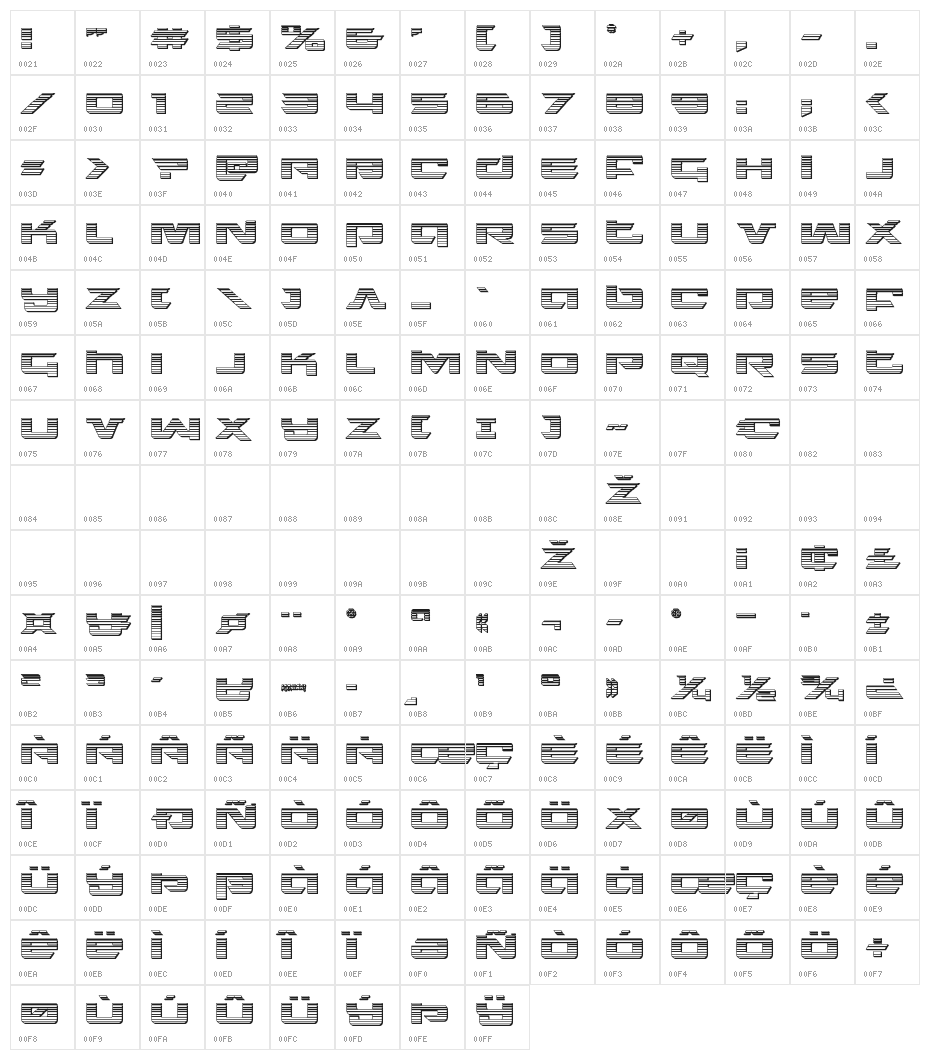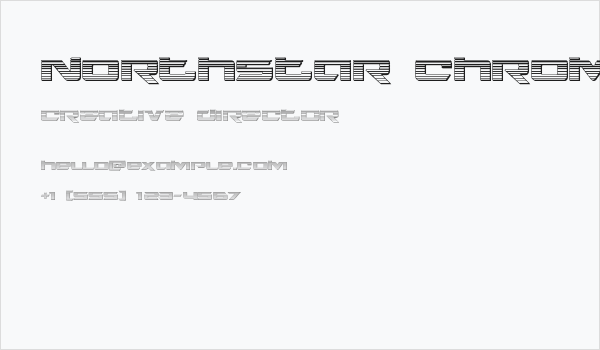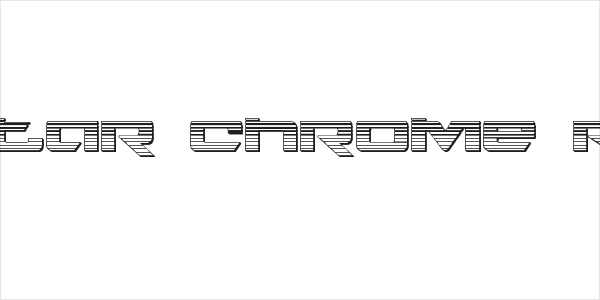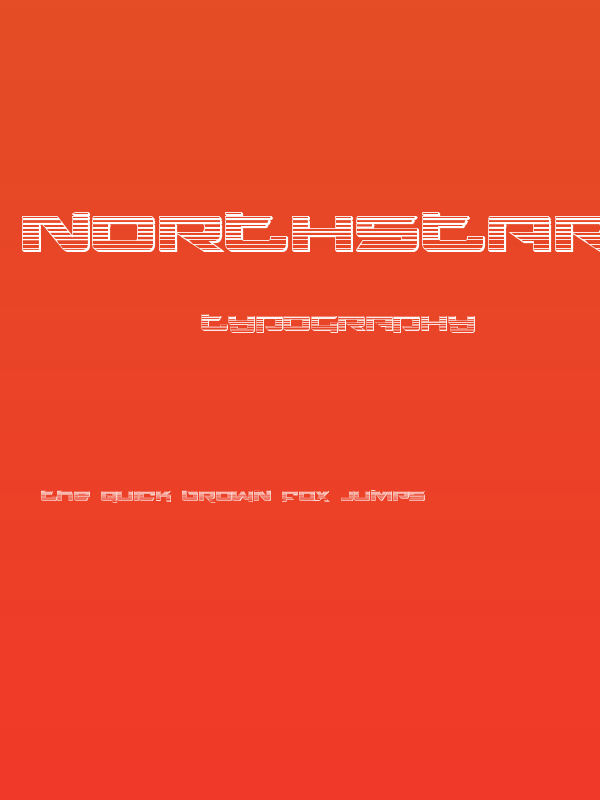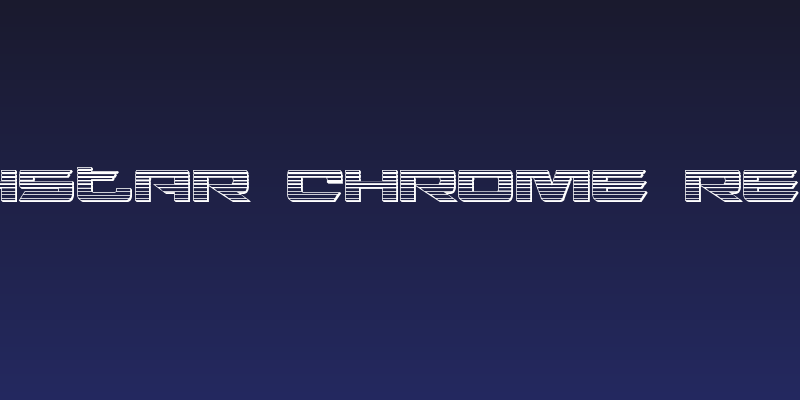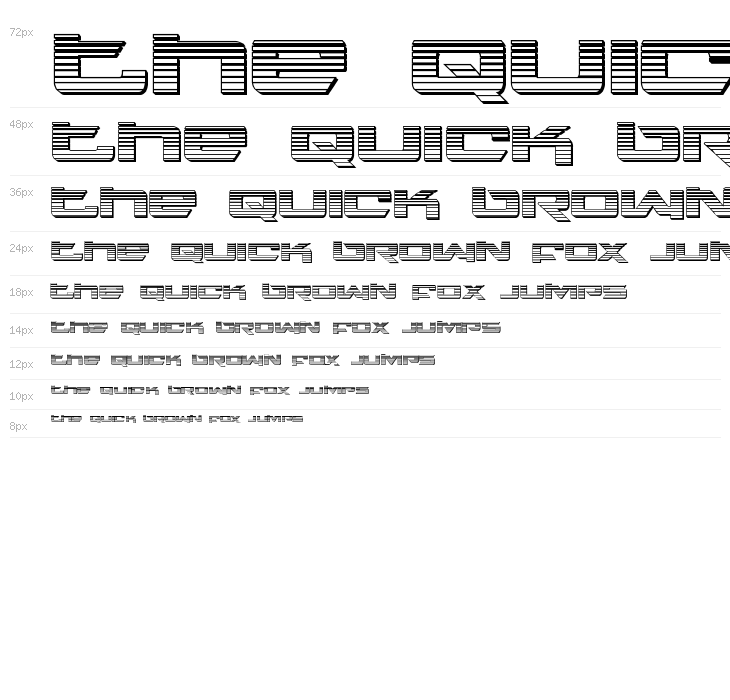
Northstar Chrome Regular Font
Northstar Chrome Regular Description
This font features a futuristic and geometric design, characterized by its bold, angular shapes and horizontal line patterns that create a sense of depth and dimension. The uppercase and lowercase letters maintain a consistent style, with each character displaying a unique combination of solid and striped elements. The numerals and special characters follow the same design principles, ensuring uniformity across the entire typeface. The font's distinct appearance makes it ideal for projects that require a modern and edgy look.
| Proposed Projects | Ideal for sci-fi themed designs, technology branding, video game titles, and futuristic posters. |